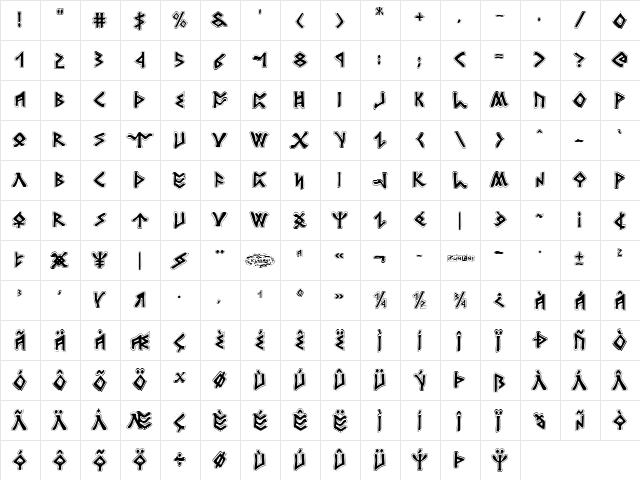
Rosicrucian Academy Regular
Design Context for Rosicrucian Academy Typeface
Rosicrucian Academy is a composed and adaptable typeface that performs quietly and consistently across a wide range of design contexts.